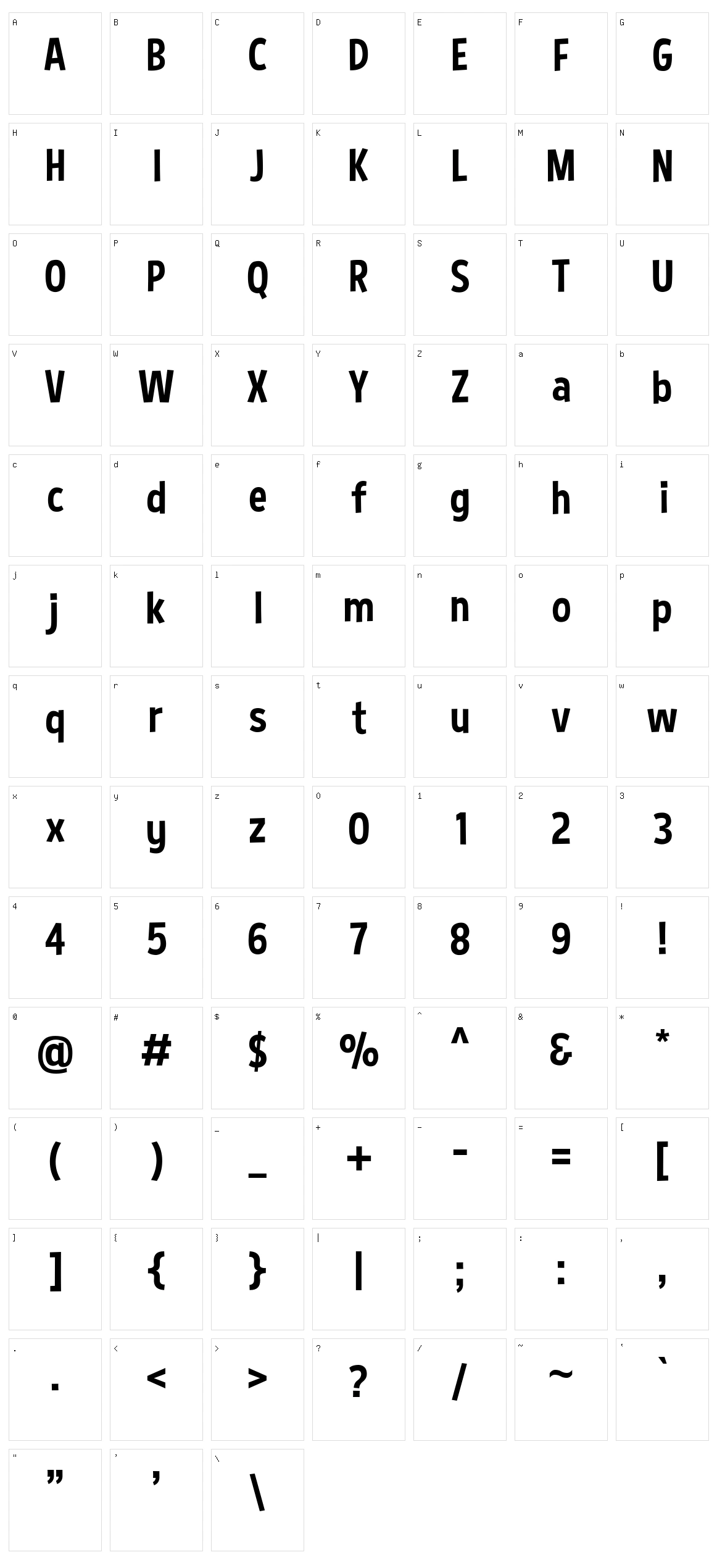
The free font Curse Casual is carefully designed by Jayvee Enaguas, showcasing a thoughtful balance of creativity and usability and falls under the Cartoon font style. When you download the ZIP file, it contains only 16.68 KB of font files, making it lightweight and quick to download. Please review the license details below to understand permitted usage and distribution rights. If license information is not available, we recommend using this font for personal projects only or contacting the author directly for commercial usage permissions.